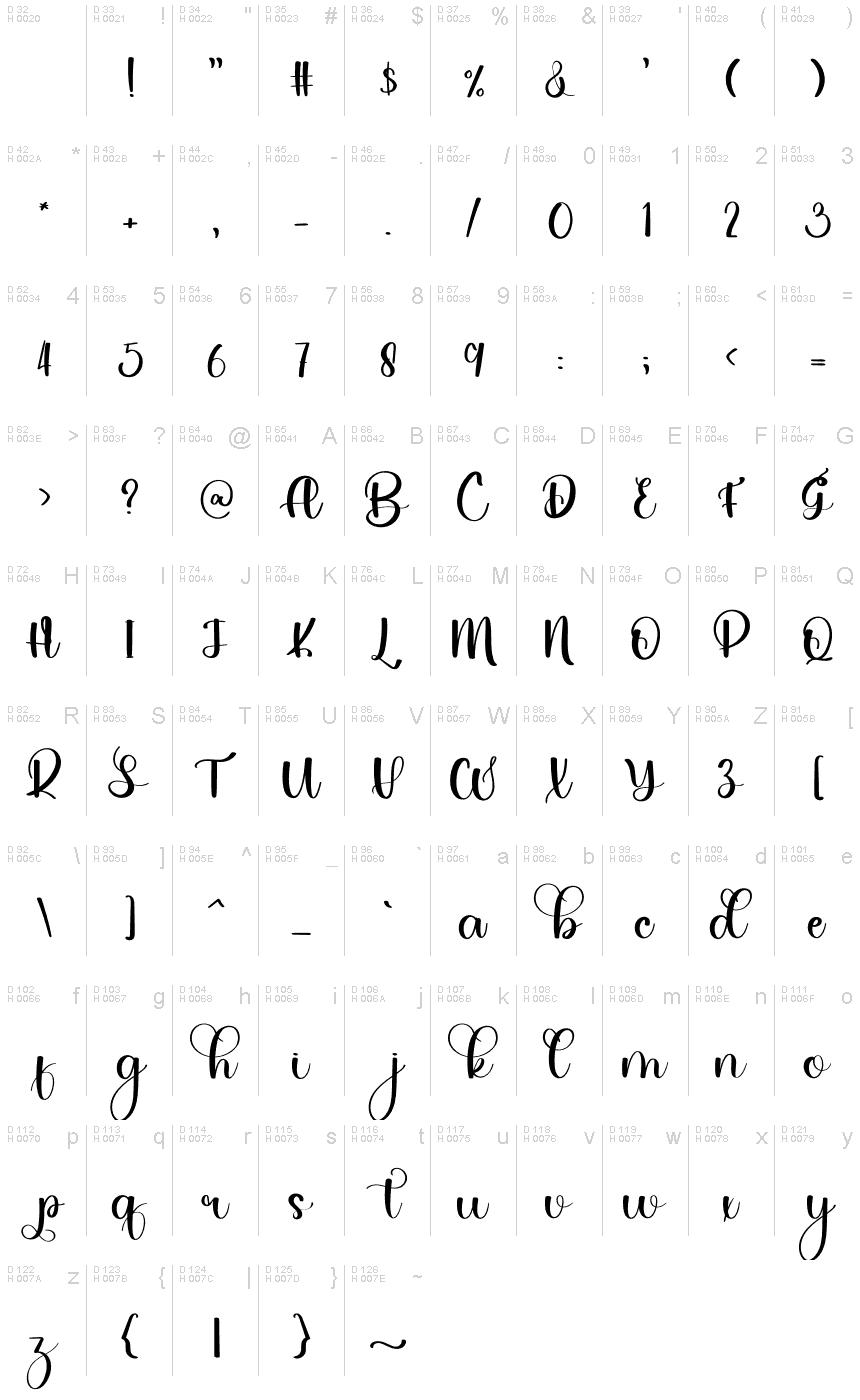
Autum
Autum, a captivating calligraphy font by PiPi Creative, exudes elegance and sophistication. With its graceful curves and flowing strokes, Autum adds a touch of refined beauty to any project.
Its versatility makes it suitable for a range of applications – from wedding invitations and event branding to luxury product packaging and high-end fashion magazines. The Autum font's delicate letterforms make it perfect for conveying a sense of romance, while its bold presence adds impact to logos and headlines.
Elevate your design with the timeless charm of Autum and effortlessly captivate your audience.